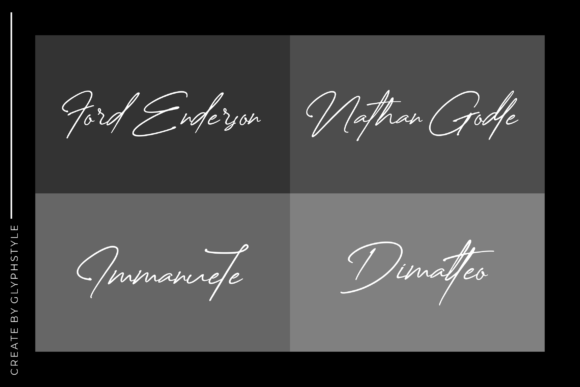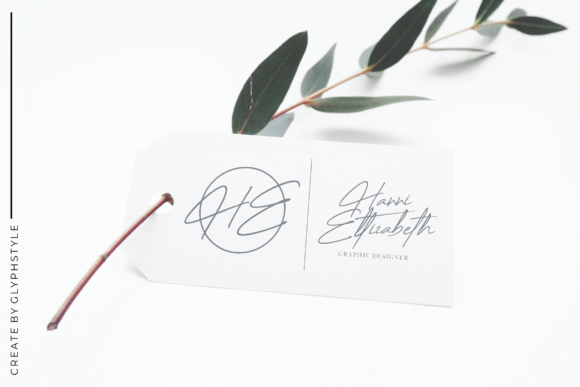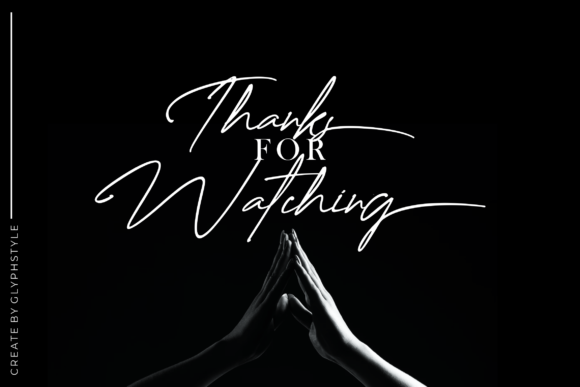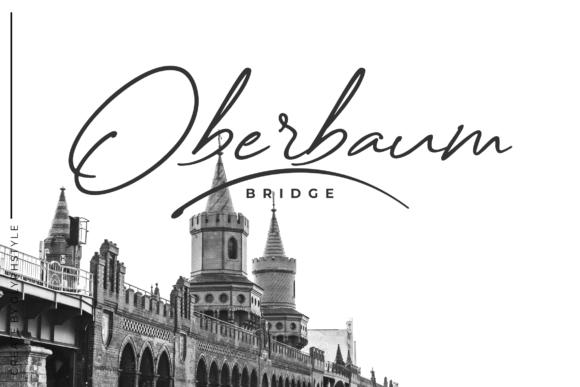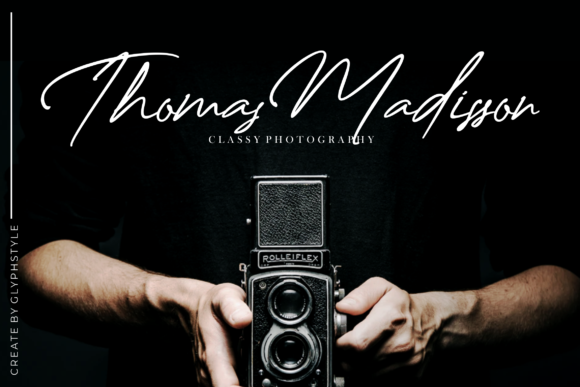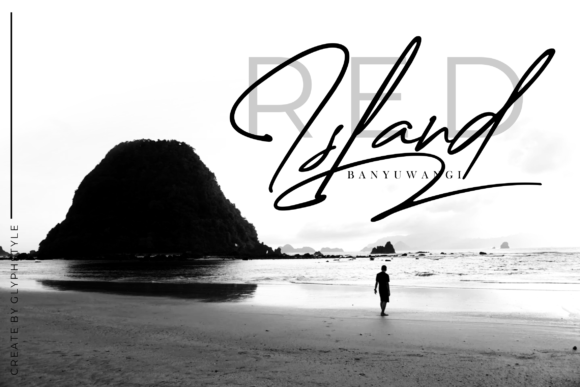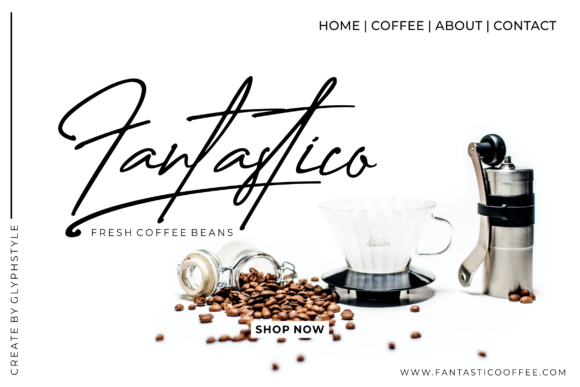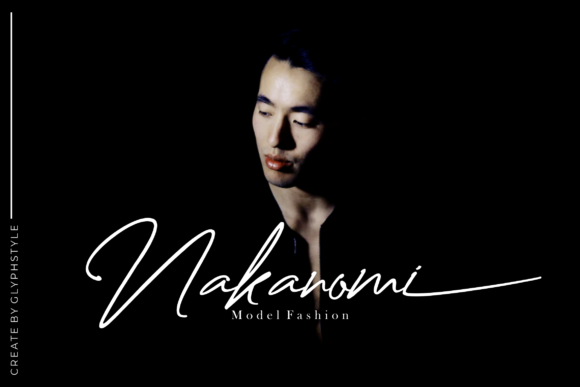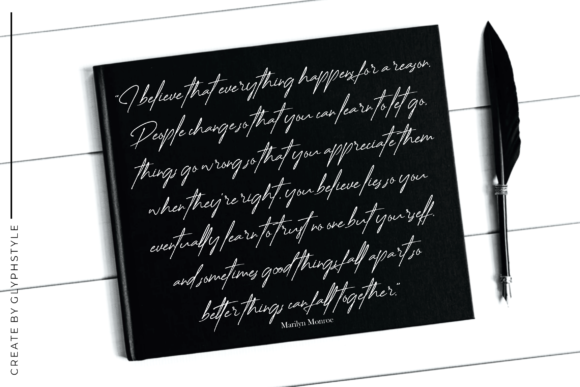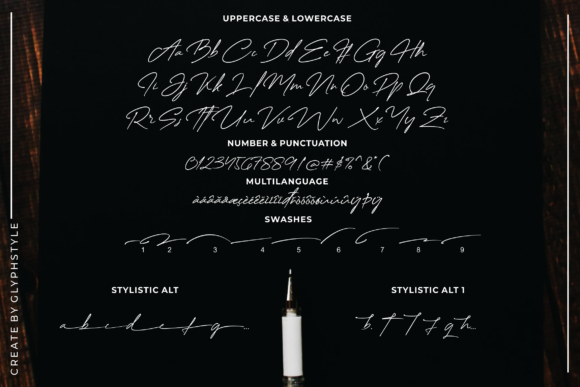
Creattion Font
About Creattion Font
Creattion is a classic calligraphy font that will turn any design project into a true standout. Get inspired by its unique charm!